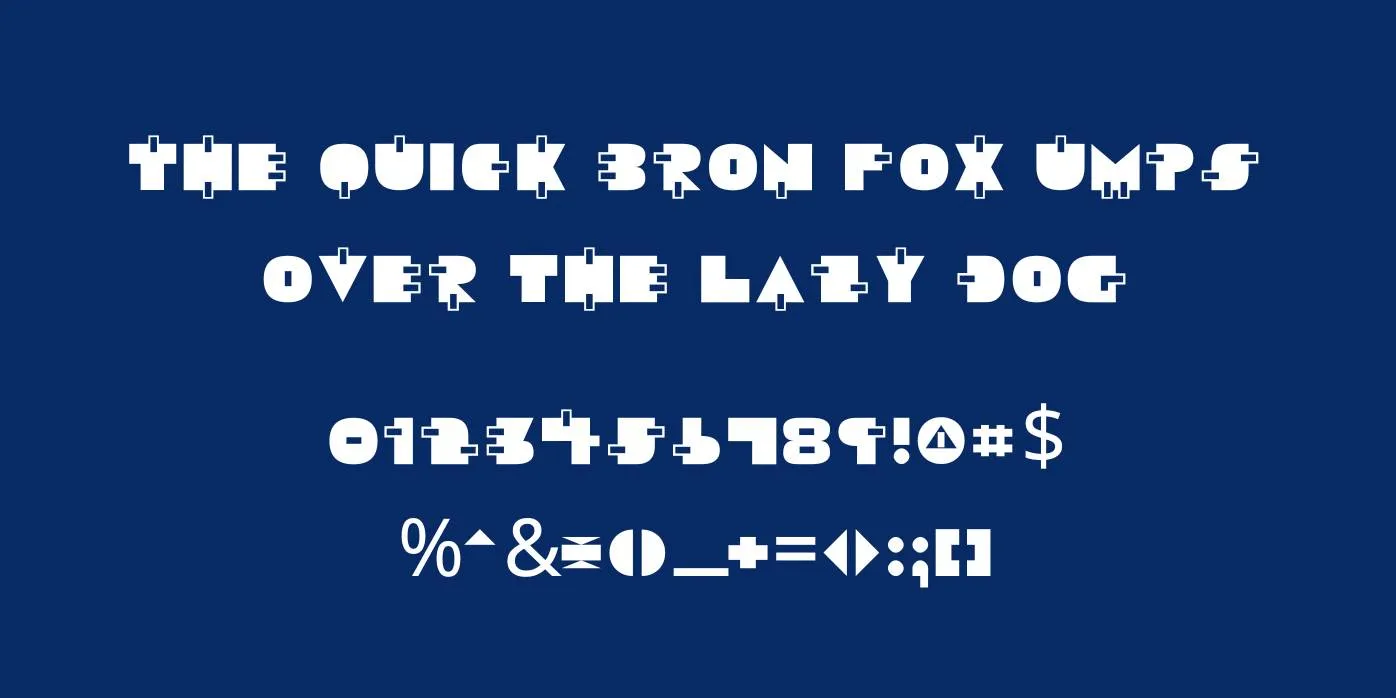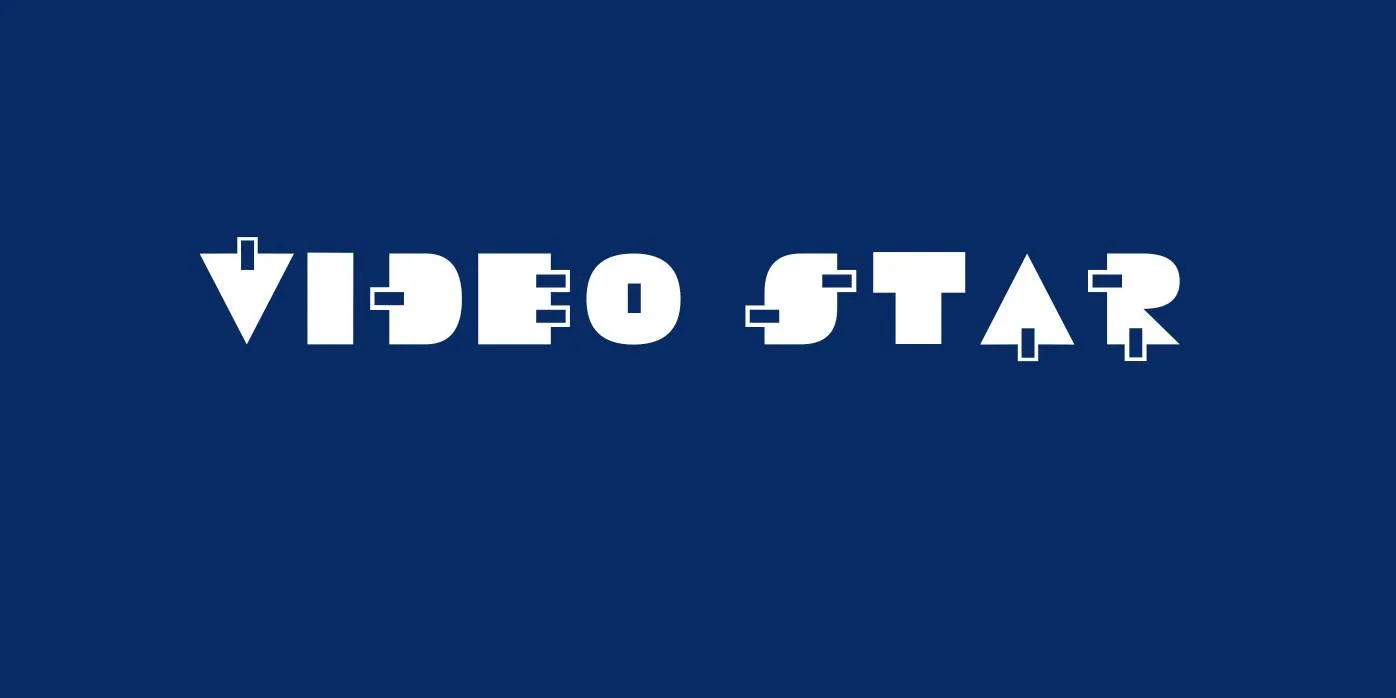
Video Star Font
Introducing you to a decorative type of texture. Iconian Fonts is the designer for this typeface. Video Star Font has amazing decorative characters that are flexible with highlighting materials like headlines, posters, titles, etc. The typeface that is best for pairing with this typeface is the scarecrow font.